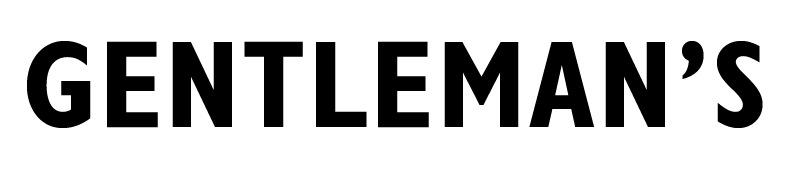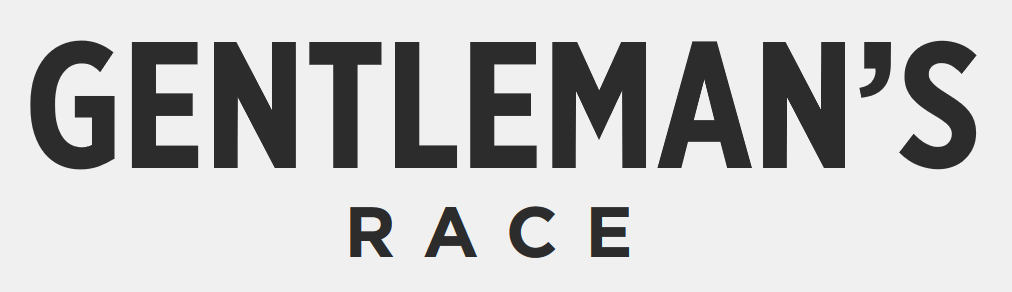
Name of this Gentleman's Race poster
I'm looking for the name of the font used for the word "Gentleman's" or something similar. I was thinking Franklin Gothic or Trade Gothic, but the G and M are different.
I saw this over DesignInspiration. It seems to be a poster about a bicycle race. I tried to follow up on the website provided there to get more info, but it sent me to a Japanese site. So no luck there. 😞
Gill Sans bold condensed - but the apostrophe is from another typeface.
Like this: everything close except the apostrophe
But look at the top of the G – not a match. Look at the spine of the S – not a match.
The apostrophe is a further hint. It’s rather unlikely that it was swapped. Rather it points to the idea, that a different typeface with a matching apostrophe was being used.
Salvador asked for something similar: "I'm looking for the name of the font used for the word "Gentleman's" or something similar". But I agree Gotham is certainly closer.
As far as the resemblance of the letterforms, I can see it way clearer in Gotham Extra Narrow, but I think the height of Gill Sans Bold Condensed is what I'd go with. I'll use them both as a reference point.